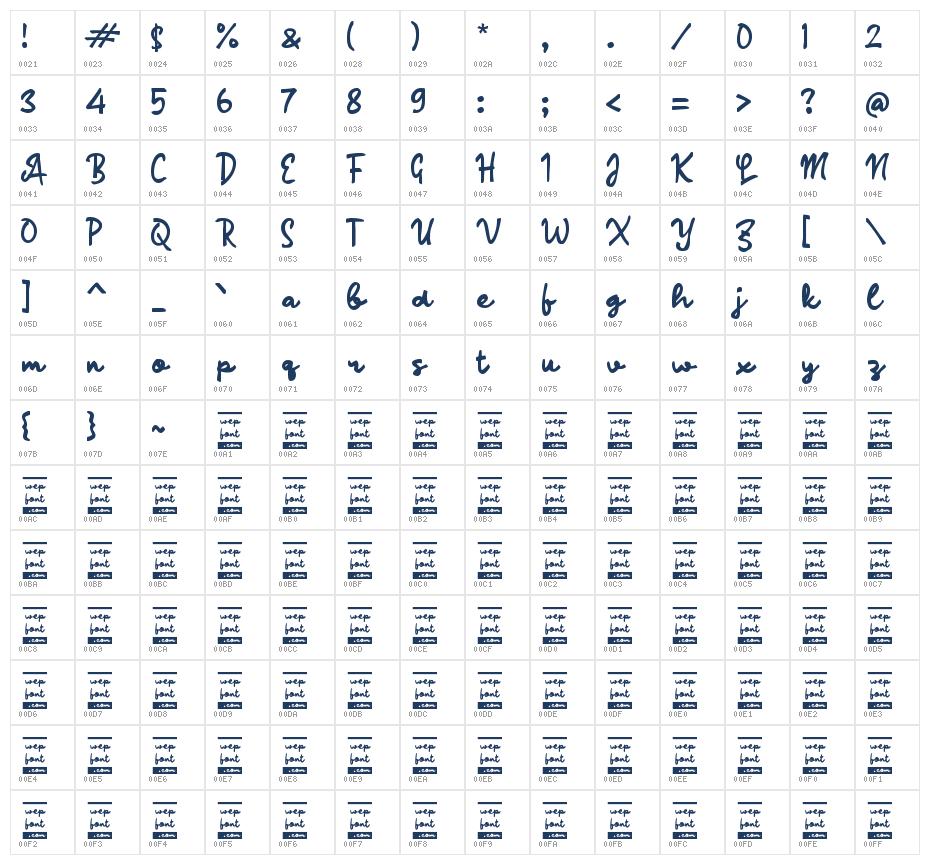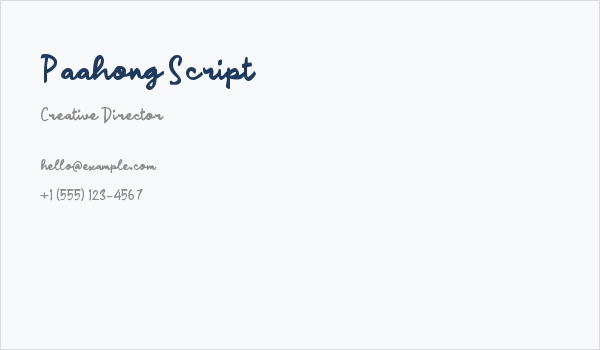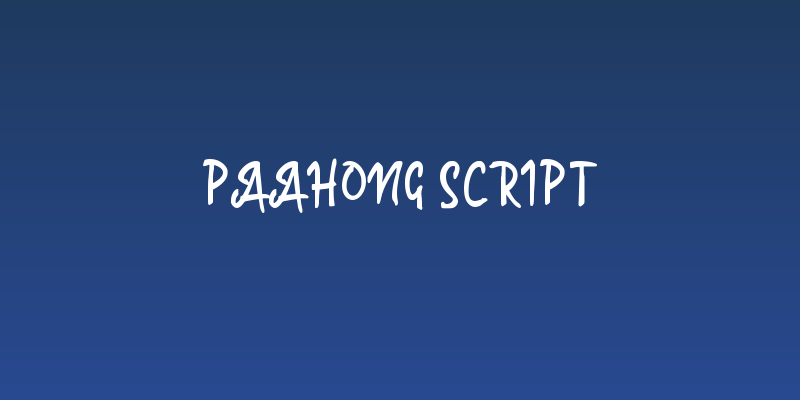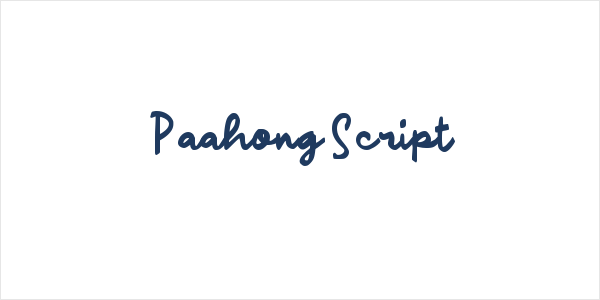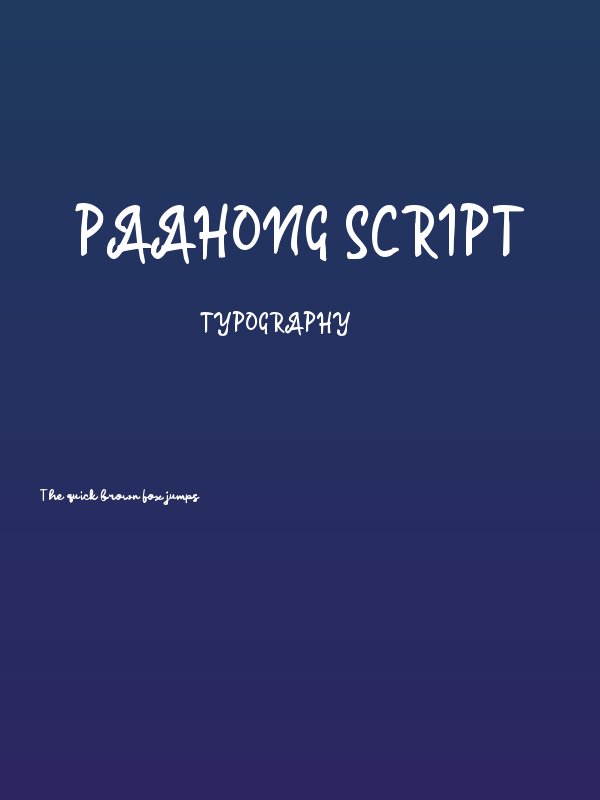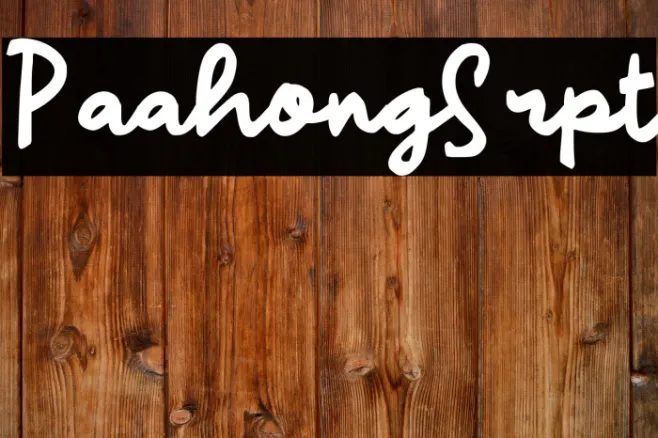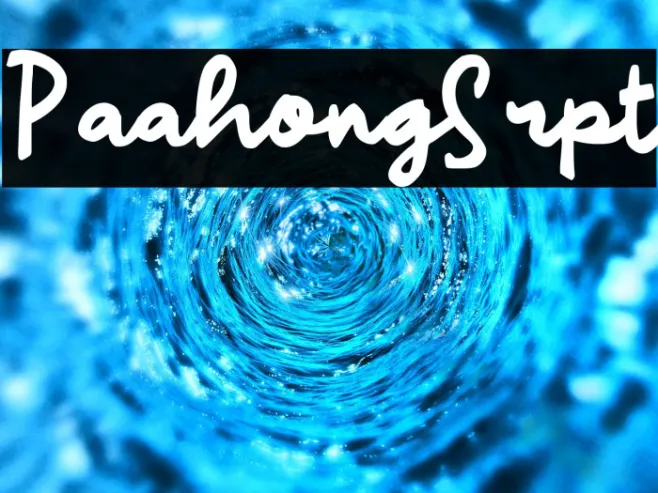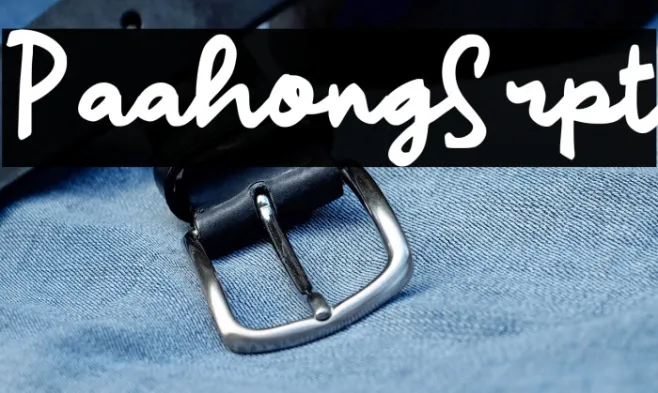
Paahong Script Font
Paahong Script Description
A casual, handwritten script font with a playful and friendly appearance, featuring smooth curves and a slightly irregular stroke width.
| Overall Style | Casual, Friendly, Handwritten |
| Use Case | Headlines, Personal projects, Logos, Invitations |